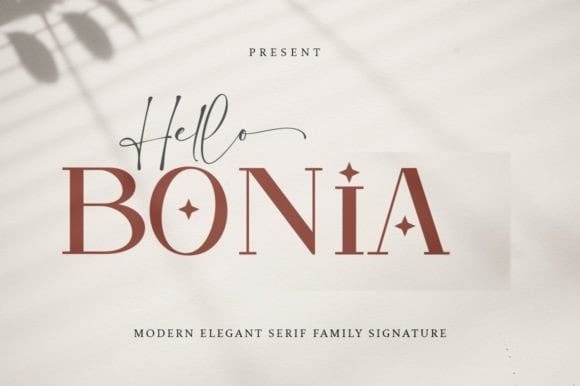
Hello Bonia Font Duo
Hello Bonia Font Duo, is a modern and stylish font duo (serif and script). It is defined by smooth curves and is perfect for fashion branding or editorial designs. Use this font for your designs and explore its endless possibilities.